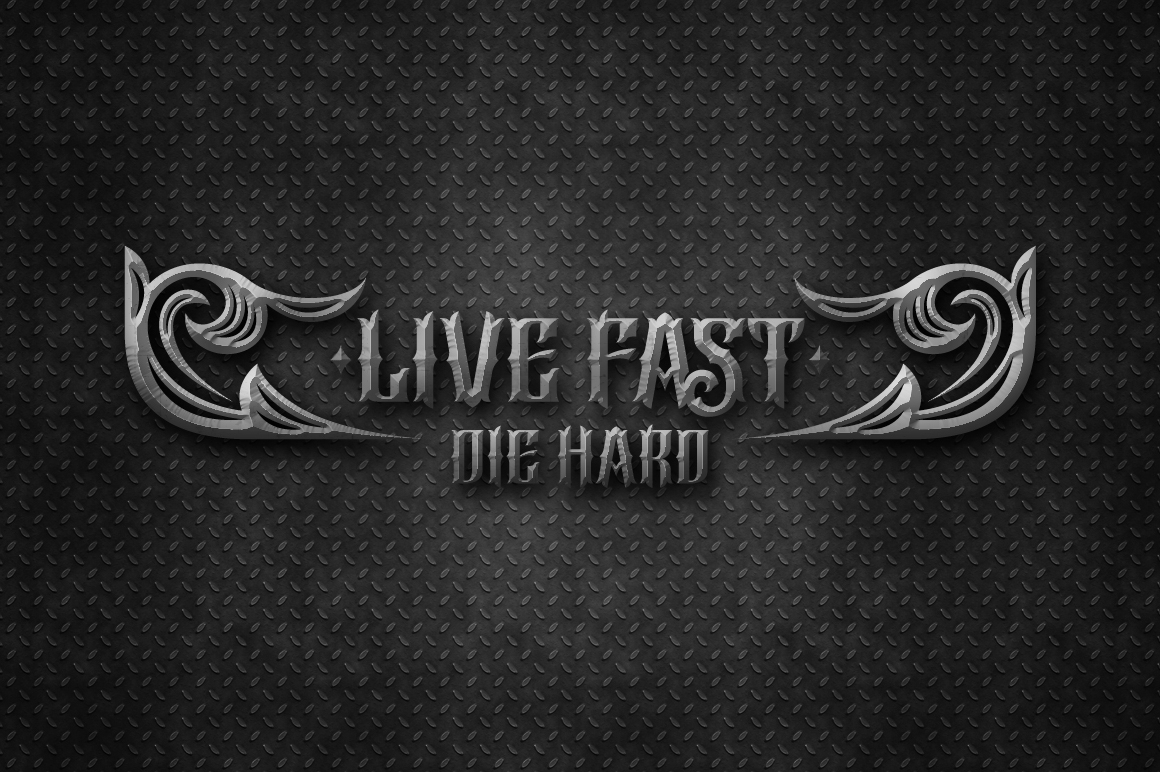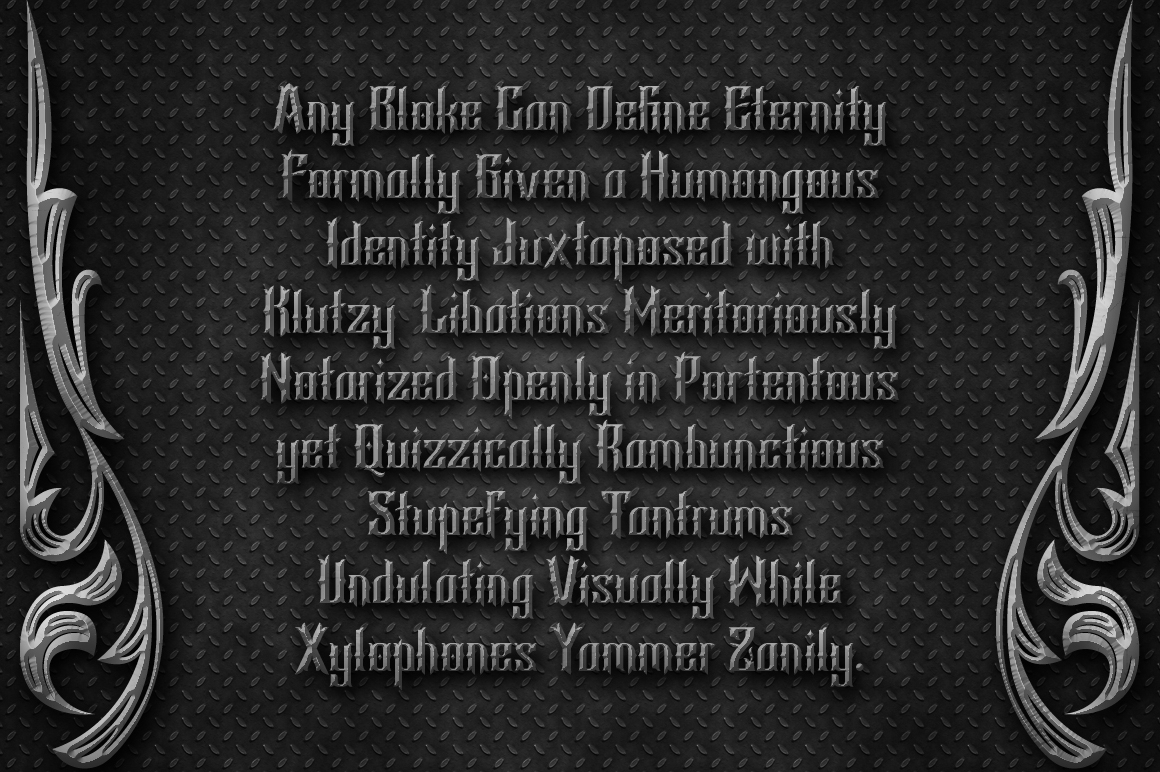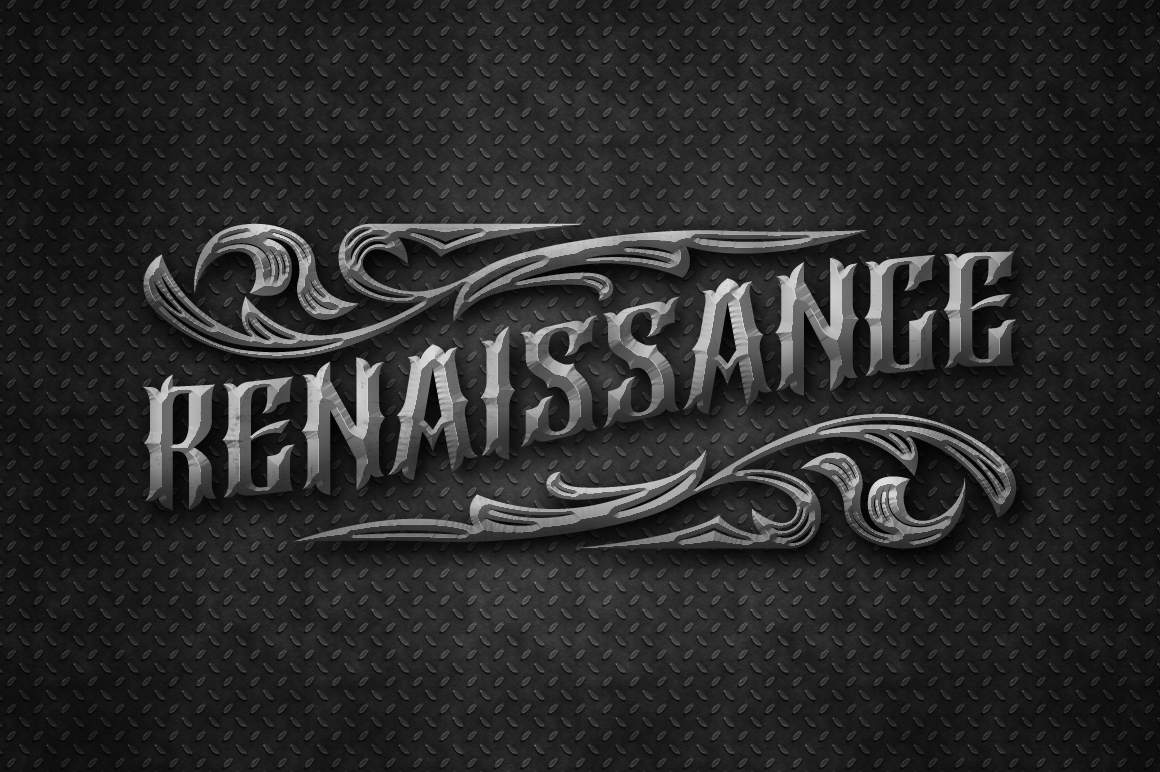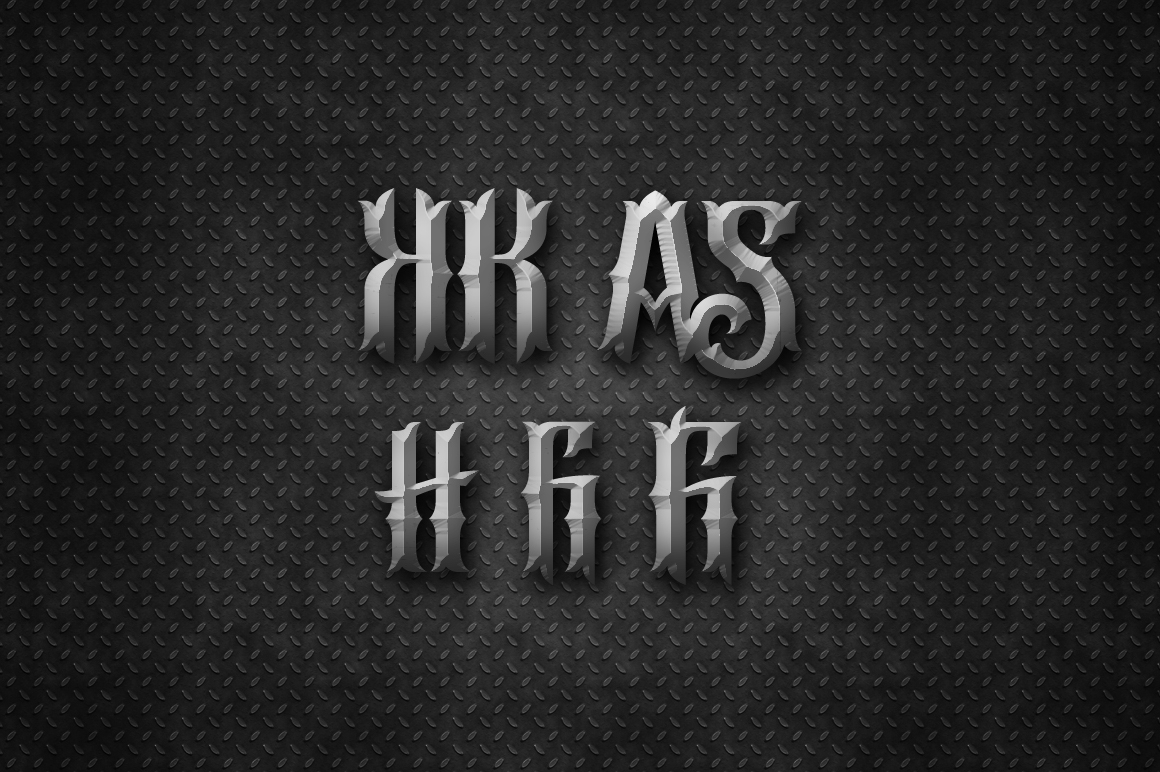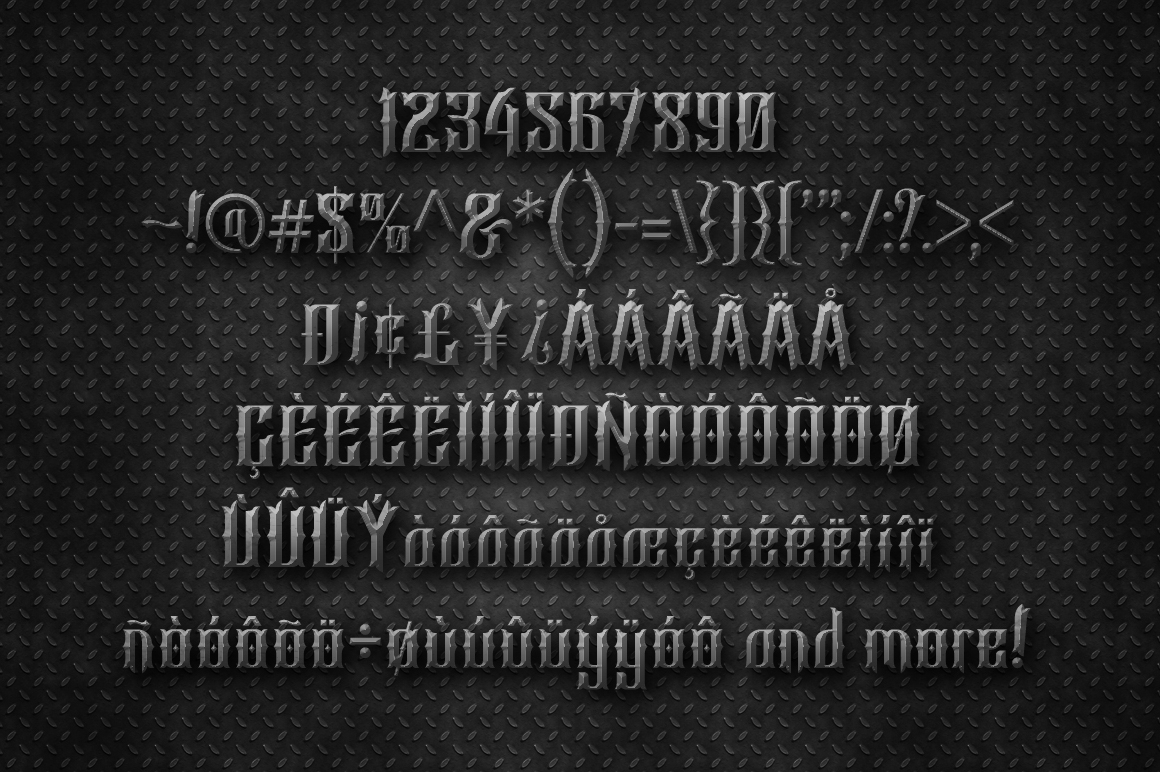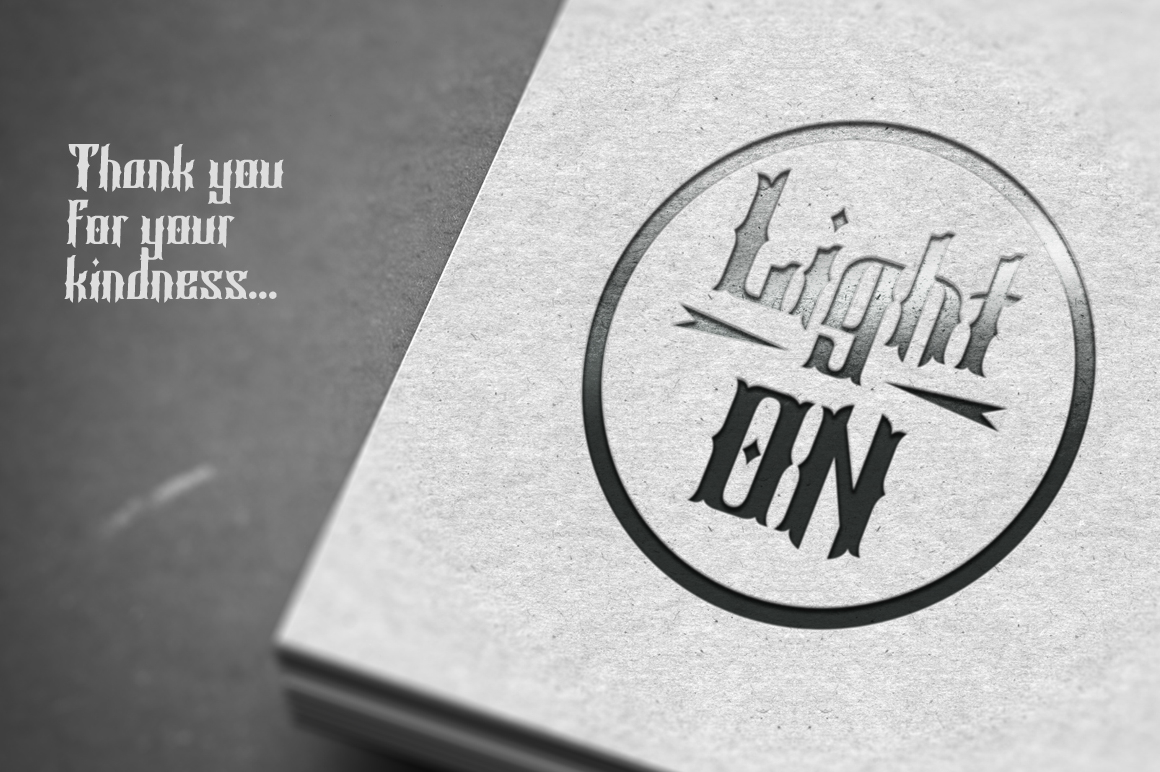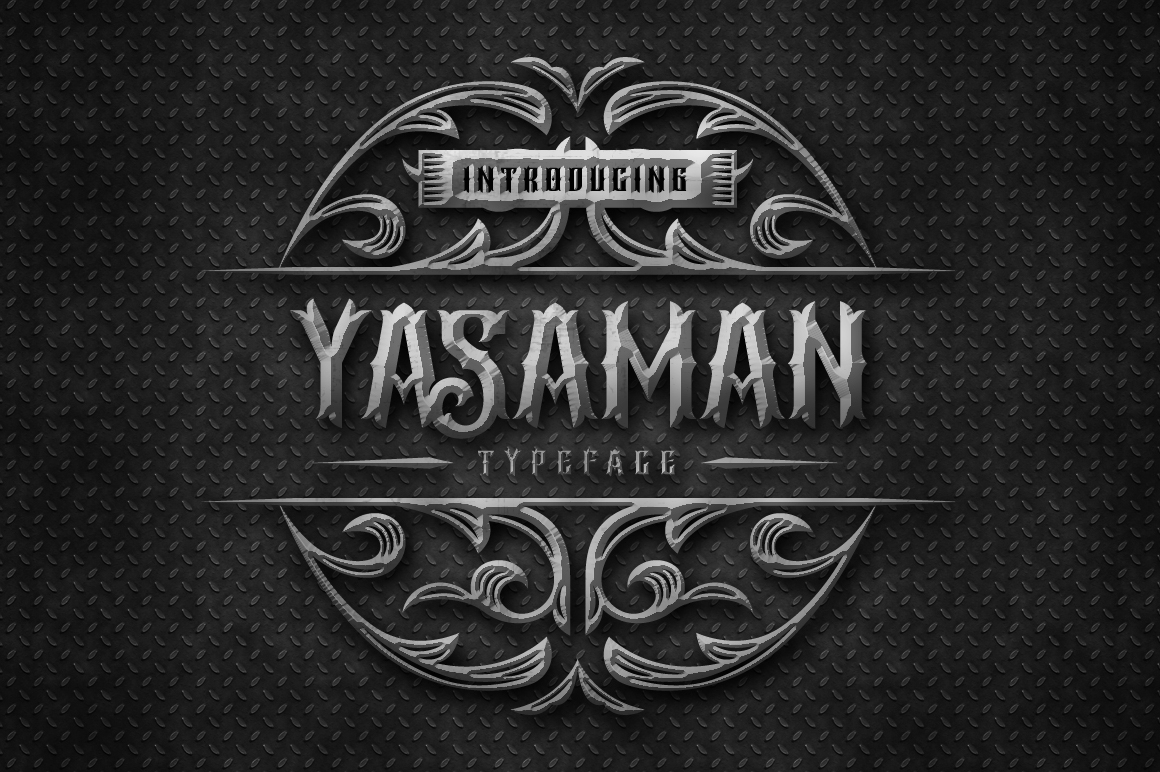
Yasaman Font
About Yasaman Font
Presenting Yasaman, a captivating Blackletter Font that redefines the essence of Art Nouveau with a modern twist. Yasaman transcends mere typography, embodying a fusion of intricate craftsmanship and contemporary innovation. This font isn’t just a design element; it’s a statement—an embodiment of elegance and sophistication that commands attention and leaves a lasting impression.
Yasaman’s allure lies in its meticulous attention to detail and fluid curves, characteristic of the Blackletter style. Each stroke is infused with a timeless charm, echoing the artistic legacy of bygone eras while embracing the demands of present-day design trends. Whether employed in headlines, branding materials, or editorial layouts, Yasaman injects an unmistakable sense of drama and flair into every project it graces.
Versatility is a defining feature of Yasaman. Its ability to seamlessly transition from vintage-inspired branding projects to contemporary editorial designs showcases its adaptability and universal appeal. The font’s bold strokes and delicate embellishments create a visual symphony that captivates audiences and elevates the aesthetic appeal of any composition.
Beyond its visual impact, Yasaman prioritizes readability—a critical aspect often overlooked in decorative fonts. Even when rendered in smaller sizes or viewed on digital platforms, its clear letterforms ensure optimal legibility, maintaining the integrity of your message while enhancing its visual appeal.
Embrace the endless creative possibilities offered by Yasaman. Whether you’re crafting invitations for a special event, designing a brand identity that demands attention, or curating editorial layouts that tell a compelling story, this font empowers you to infuse your projects with personality and charm.
Incorporating Yasaman into your design toolkit isn’t just a stylistic choice; it’s a commitment to excellence—a recognition of the transformative power of typography in shaping the narrative of your brand or message. Let Yasaman be your guide as you embark on a journey of creative exploration and expression, where every word becomes a brushstroke on the canvas of your imagination.
Experience the magic of Yasaman—a font that transcends boundaries and defies expectations. With its blend of classic elegance and contemporary sophistication, Yasaman invites you to rediscover the art of storytelling through typography, one character at a time.